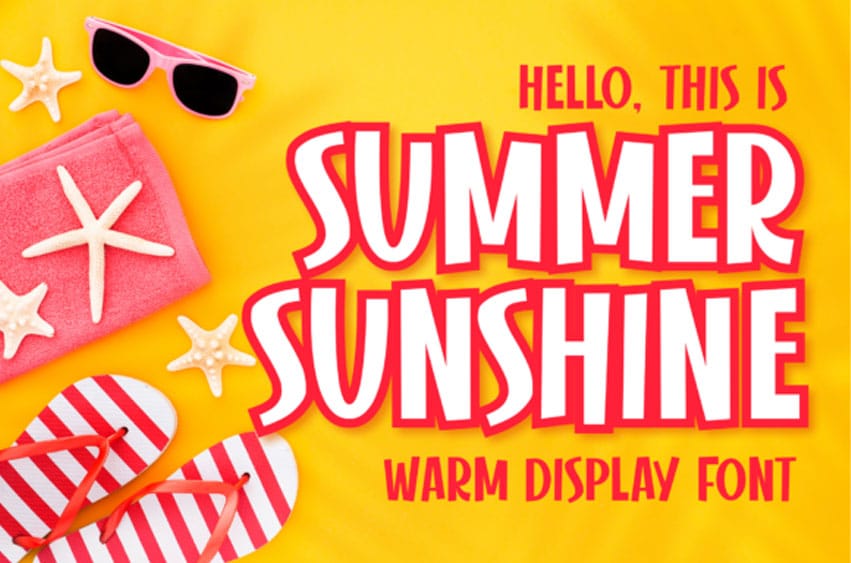
Summer Sunshine Font is a lovely, bold and joyful display font.
Masterfully designed to become a true favorite, Summer Sunshine is a wonderful choice for each of your summery projects!